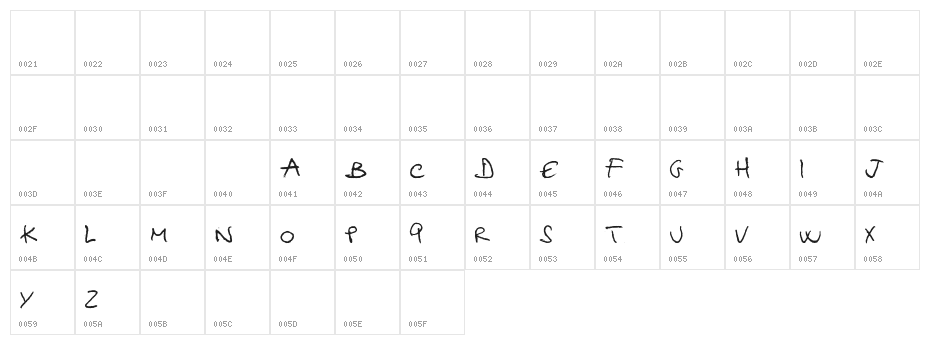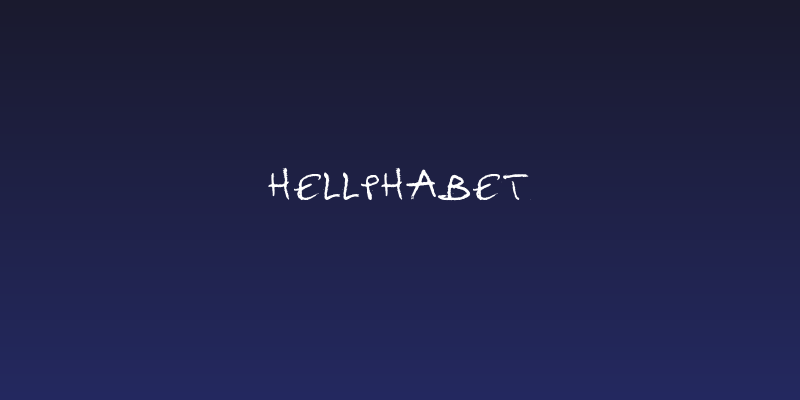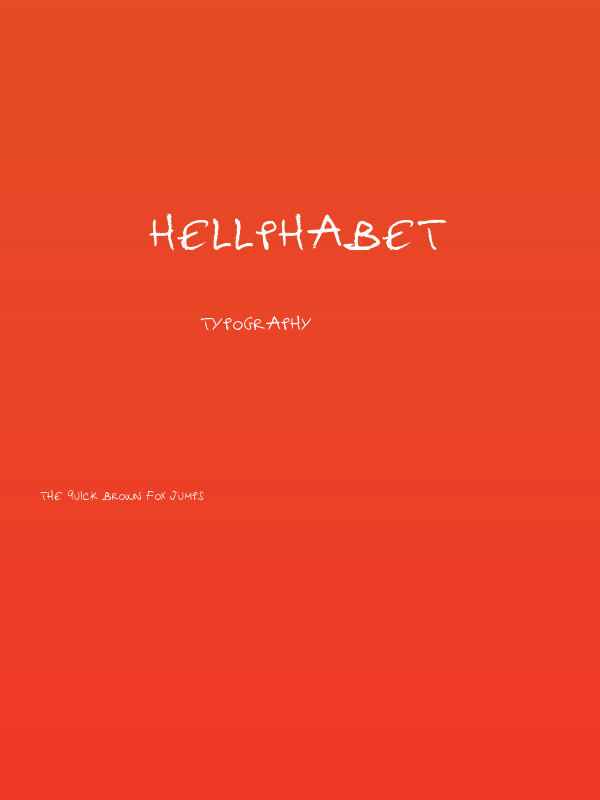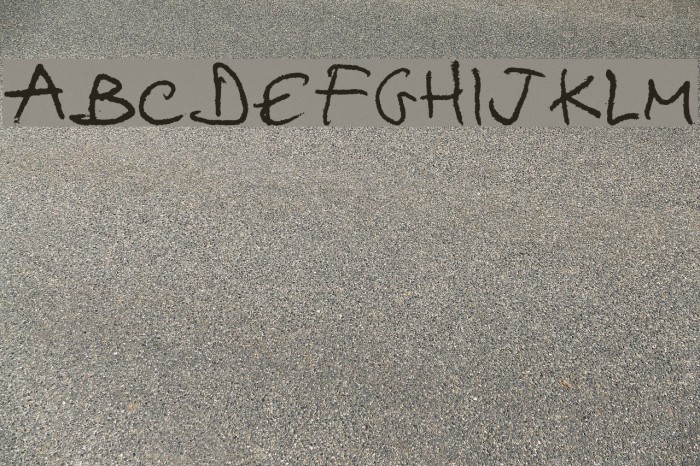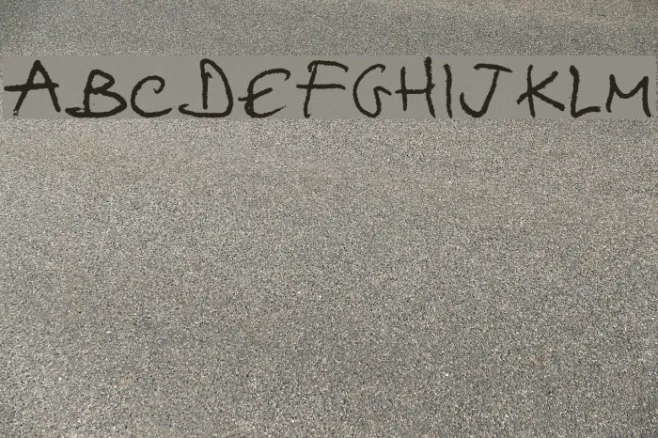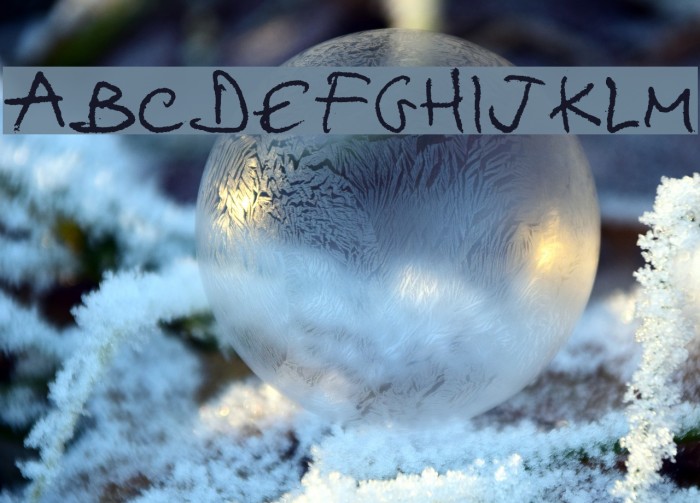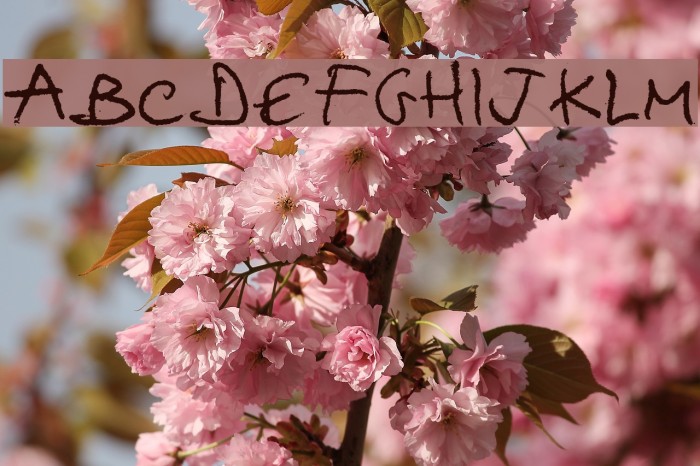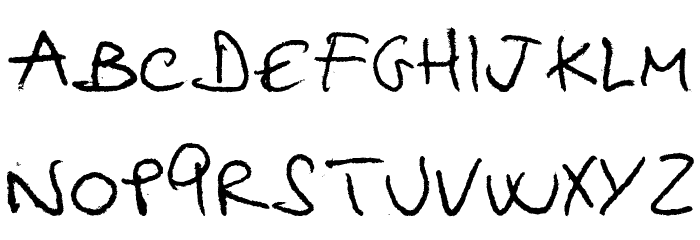
hellphabet Font
hellphabet Description
This font exudes a casual, handwritten style, reminiscent of chalk or crayon on a board. The characters are unevenly weighted, adding a playful and informal touch. The strokes are rough and textured, giving it an organic feel. The letters are slightly slanted, enhancing the handwritten effect. The overall appearance is approachable and friendly, making it suitable for creative and informal projects. The font maintains legibility despite its informal style, with each character distinctly recognizable.